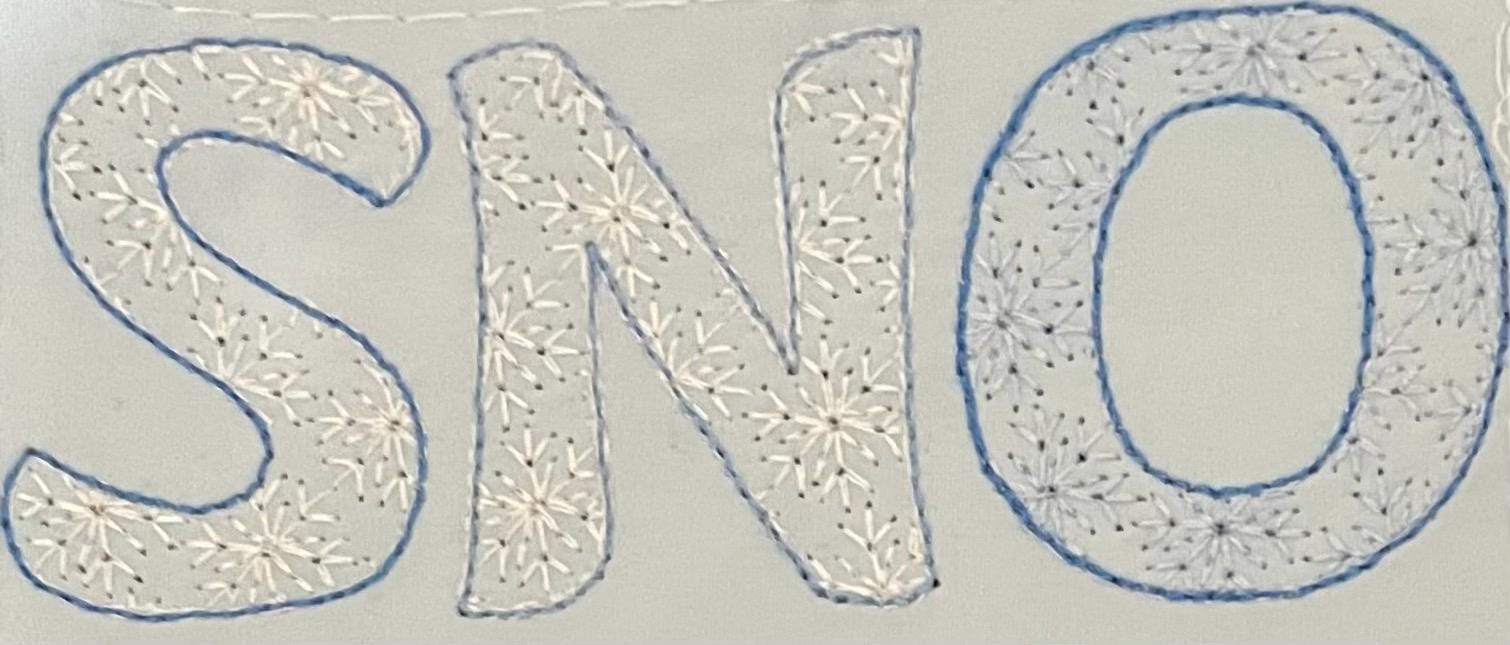
Frozen Font machine embroidery designs - cps, letters and numbers 3 and 2 inches
This is quick stitch designs, they look like like laces, the background fabric look through. Stunning effect.
1 1/2 inches
2 inches - shown on photo
3 1/2 inches